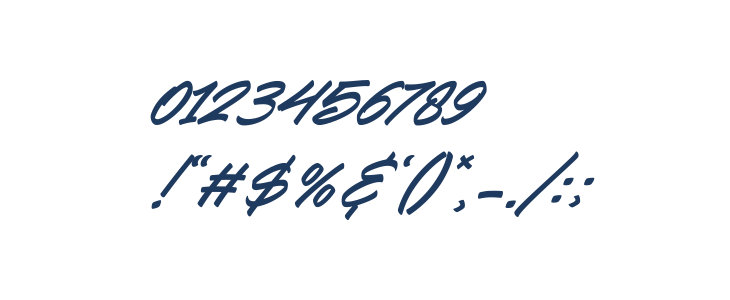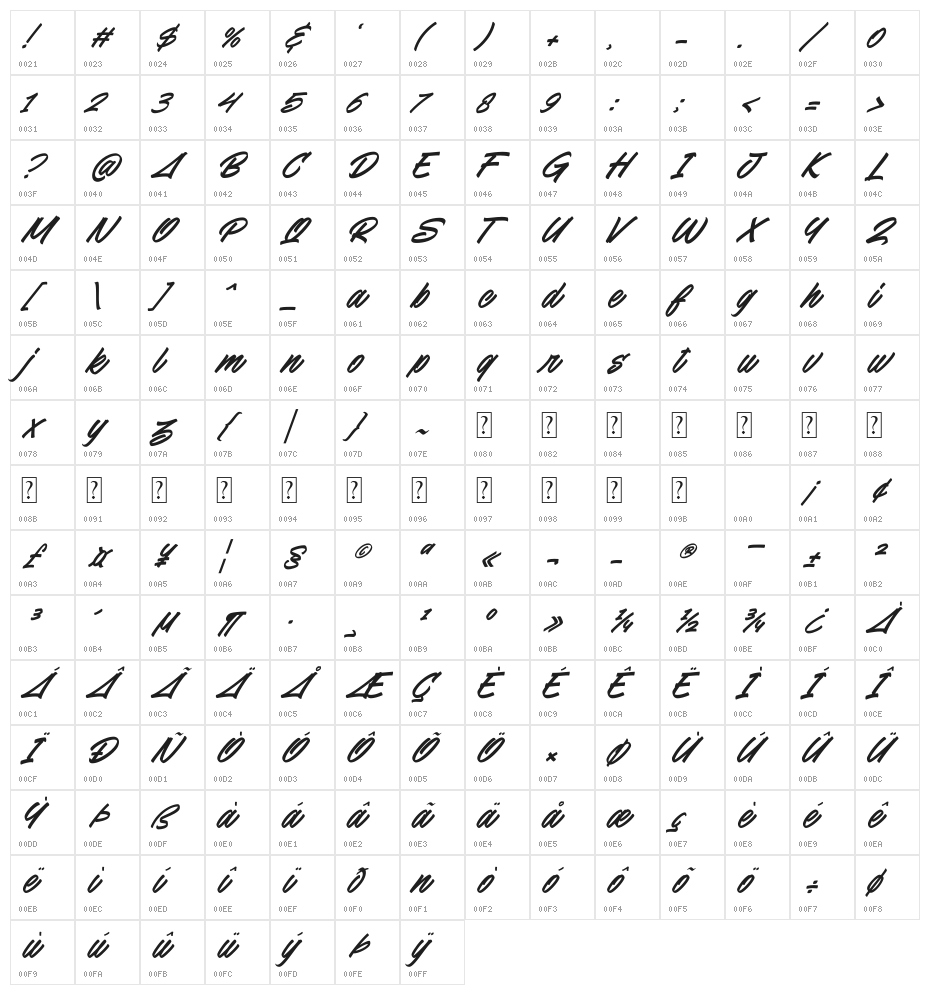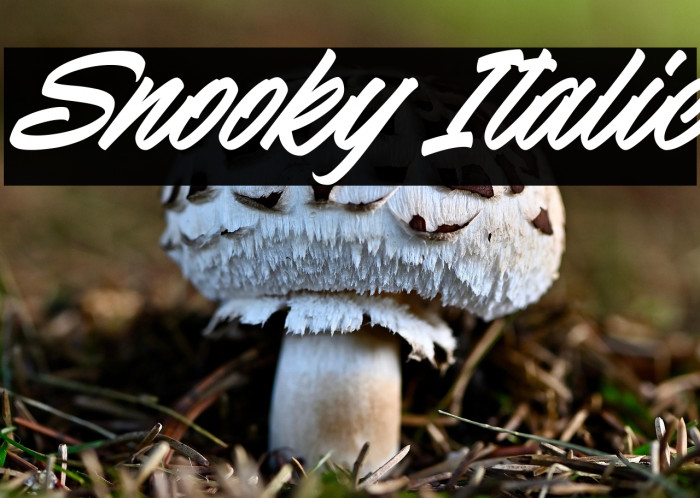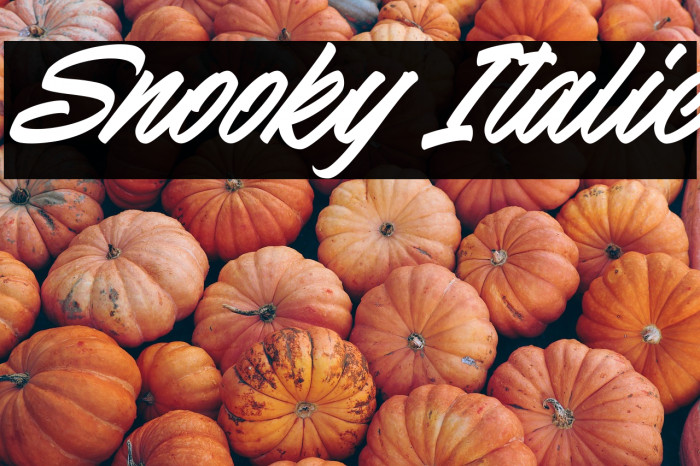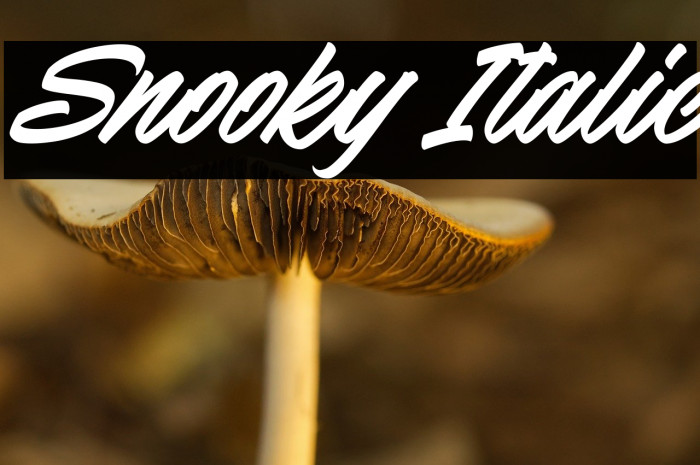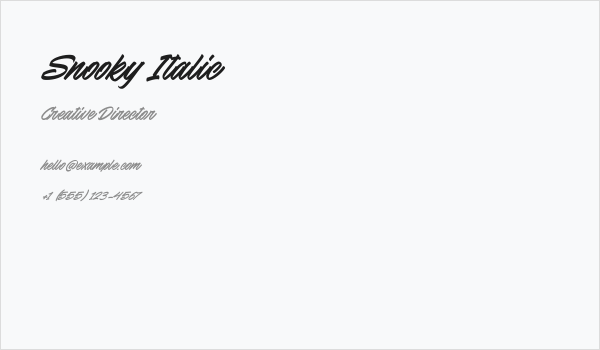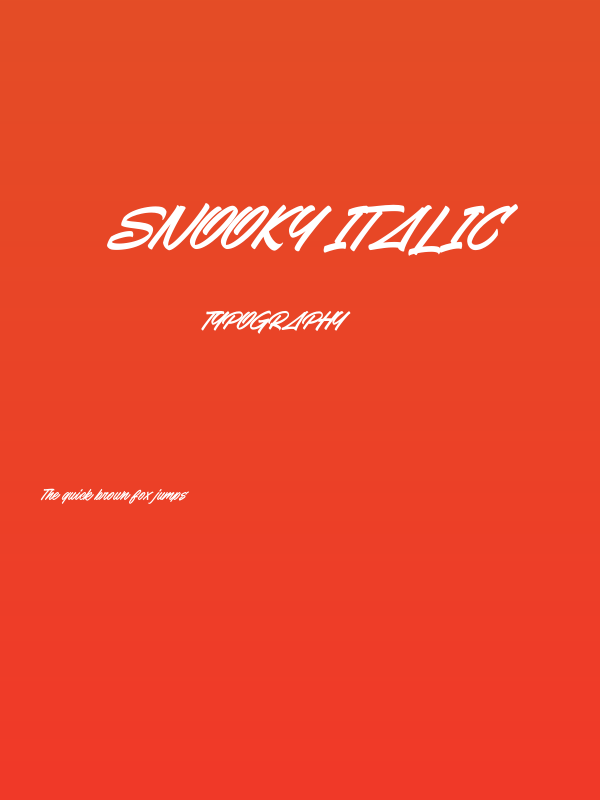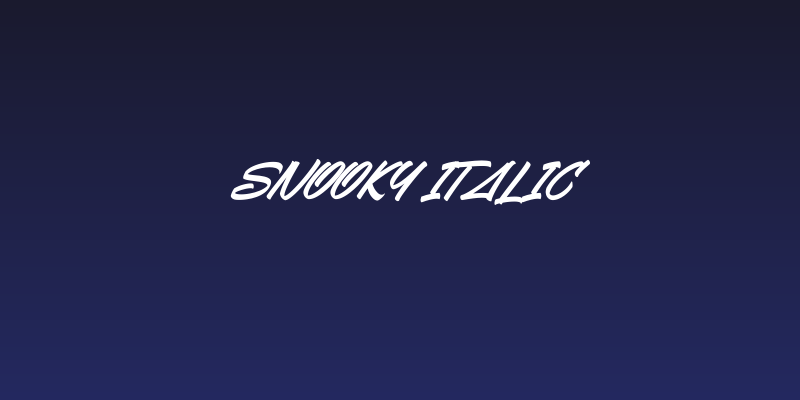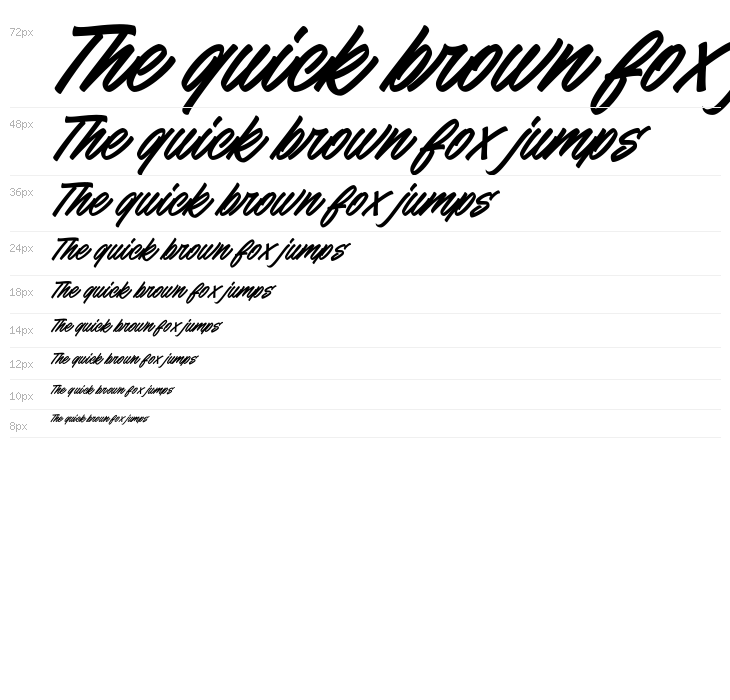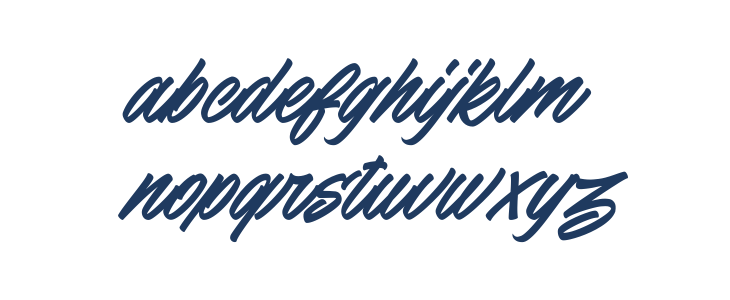
Snooky Italic Font
Snooky Italic Description
This font features a dynamic and energetic script style with a pronounced slant, giving it a sense of motion and fluidity. The characters are bold and connected, creating a cohesive and flowing appearance. The strokes are thick and consistent, contributing to a strong visual impact. This font's design is reminiscent of handwritten calligraphy, with a modern twist that makes it suitable for contemporary designs. The uppercase and lowercase letters maintain a uniform style, while the numerals and special characters are crafted to match the overall aesthetic.
| Use Case | Logos, Invitations, Headlines |
| Proposed Projects | Ideal for branding, logos, invitations, and any project that requires a personal and stylish touch. |